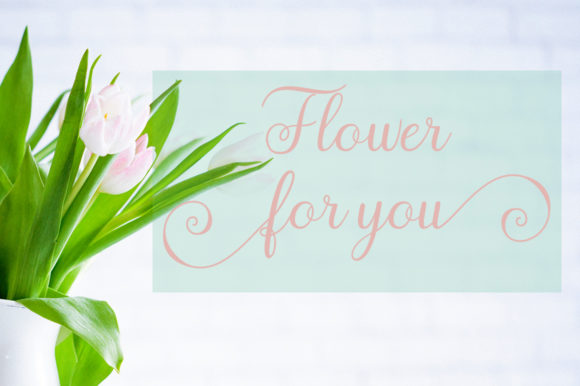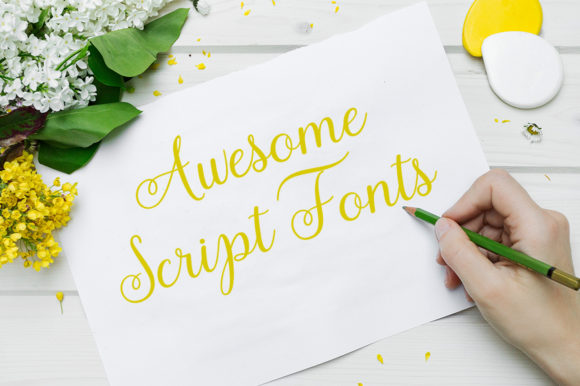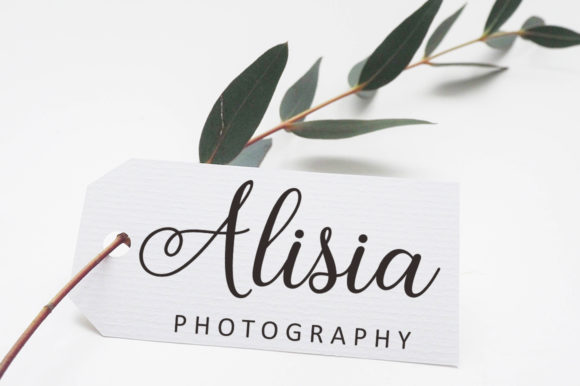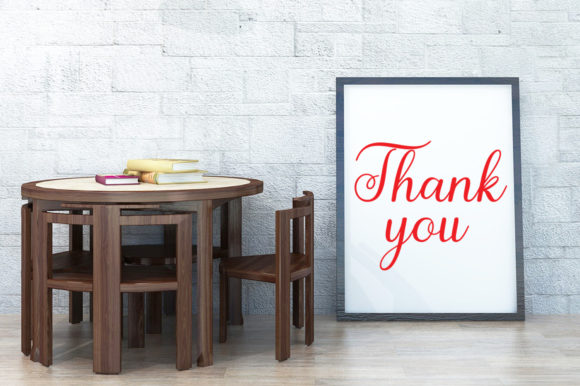
Introduction to Matterhon Script Font Font
Fonts play a crucial role in design, and the Matterhon Script Font font is a typeface that brings both character and versatility to any project. Whether you’re working on a branding project, a website, or a print design, the Matterhon Script Font font offers a unique style that can elevate your work.
The Matterhon is a modern script font.
Itβs handwritten and is perfect to add a personal and elegant touch to your logos, product packaging, branding, headlines, labels, book covers, posters, quotes and more .
Key Features of Matterhon Script Font Font
Why Choose Matterhon Script Font Font?
The Matterhon Script Font font is more than just a typeface β it’s a design tool that helps you communicate your message with style and clarity. Its unique character set and versatile design make it suitable for a wide range of applications, from elegant invitations to bold headlines.
With its carefully crafted letterforms and balanced proportions, the Matterhon Script Font font ensures readability and visual appeal across all mediums.
What makes Matterhon Script Font font special?
The Matterhon Script Font font stands out with its unique design, exceptional readability, and versatility across various design applications.